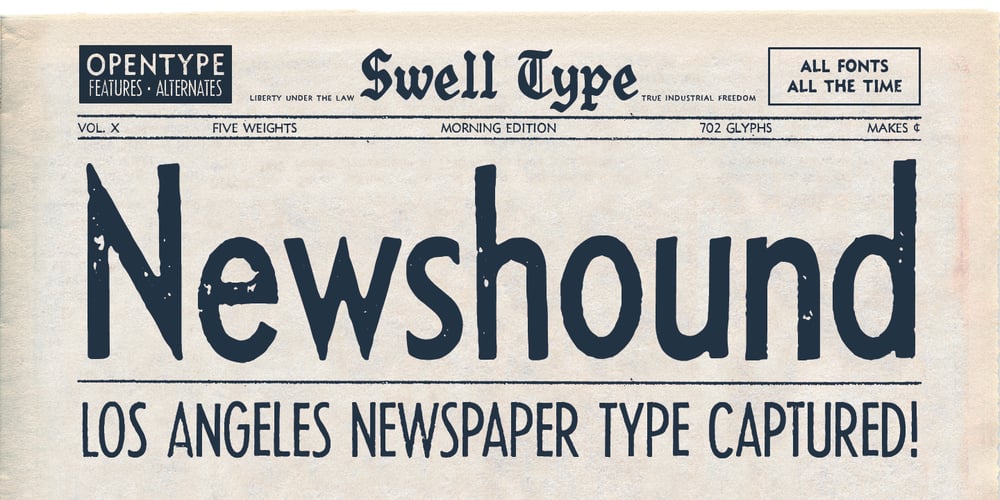
Newshound Font Family was designed by John Roshell and published by Swell Type. Newshound contains 5 styles and family package options. Based on the Headline and Caption styles of the Los Angeles Times from the 1930s to 1970s, Newshound delightfully captures the inconsistency and grunginess of metal type printed on cheap, absorbent newsprint. Three versions of each letter, and two versions of each number and punctuation mark, cycle automatically to create a random, natural printed appearance. Each weight includes Stylistic Alternates for extra design options, along with support for 221 languages.